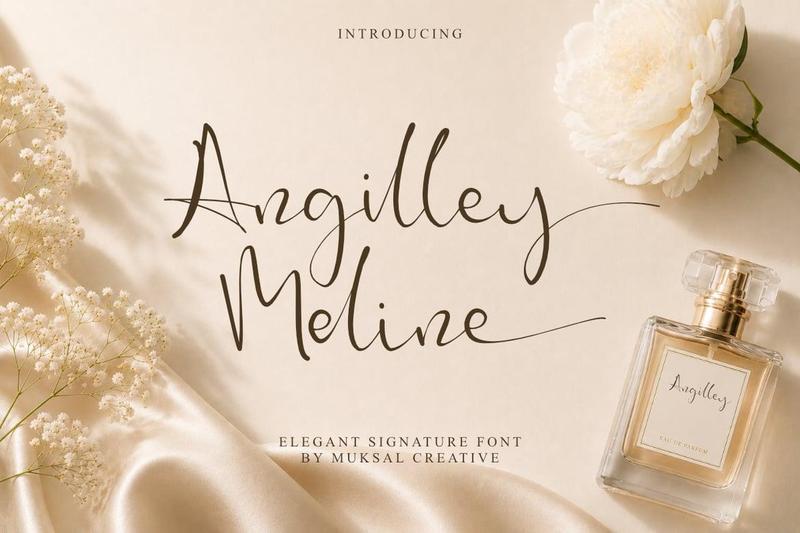
Angilley Meline Elegant Signature Font 6LZ67N2
Angilley Meline is a graceful handwritten signature font designed to bring elegance, charm, and authenticity to your creative projects. Featuring delicate monoline strokes and naturally flowing letterforms, this font captures the beauty of a personal signature while maintaining a refined and professional appearance.
Its sophisticated style makes Angilley Meline perfect for luxury branding, beauty products, wedding invitations, fashion editorials, social media content, logos, packaging, and high-end marketing materials. The font delivers a modern feminine aesthetic that feels both timeless and effortlessly stylish.
Whether you’re creating a premium brand identity or adding a personal touch to your designs, Angilley Meline offers the perfect balance between elegance and readability.